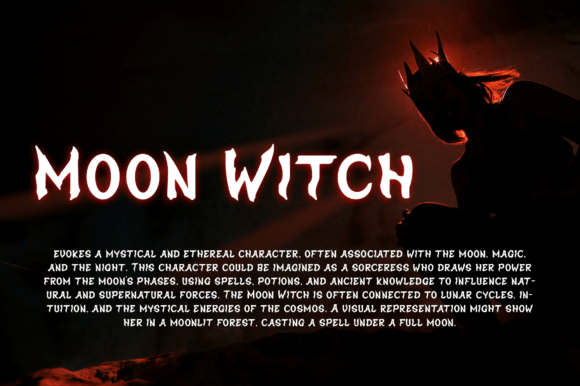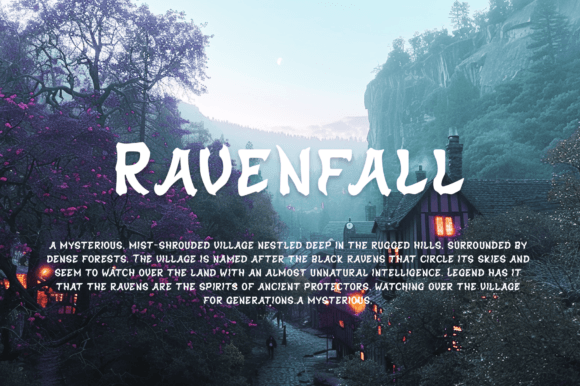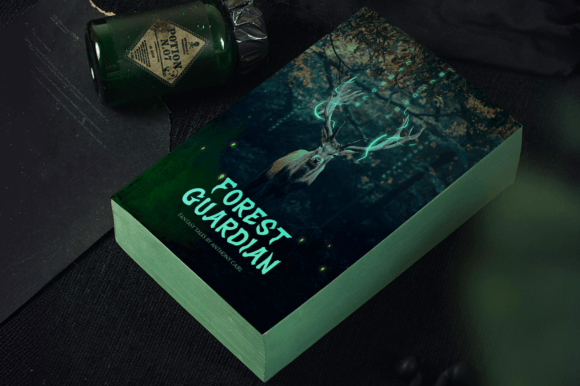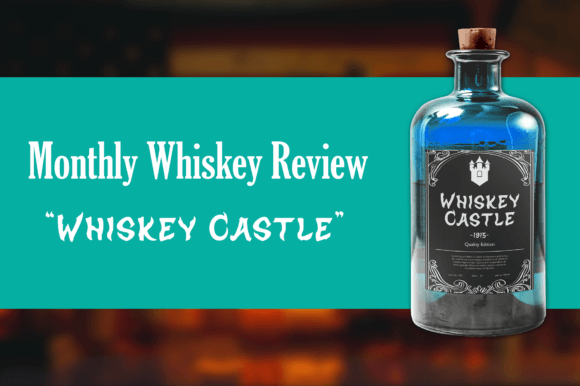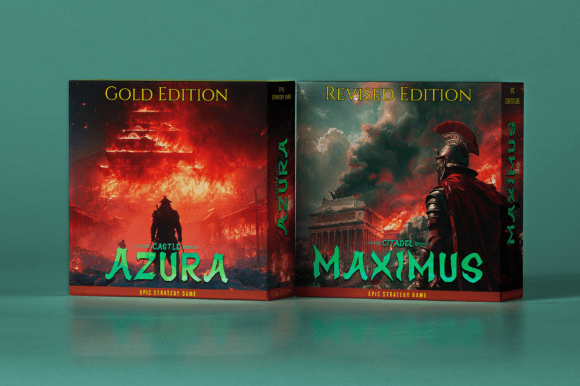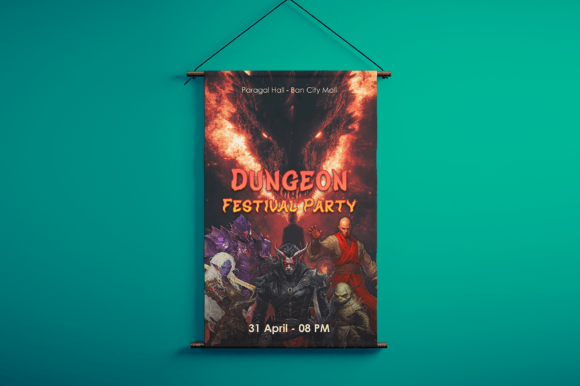
Introduction to Runewood Font
Imagine yourself lost in a dense, misty forest, surrounded by towering trees and the whispers of ancient magic. The air is thick with mystery, and the only sound is the rustling of leaves beneath your feet. It’s moments like these that spark the creativity within us, and inspire us to bring our wildest visions to life.
For designers, the right font can make all the difference in bringing a project to life. That’s why we’re excited to introduce you to the Runewood Font, a bold fantasy typeface that’s sure to captivate your imagination and transport your audience to a world of wonder and awe.
With its sharp, jagged edges and thick strokes, the Runewood Font is the perfect design resource for any creative project. Whether you’re designing a game, book cover, or mystical brand, this high-quality font is sure to make your message stand out with strength and elegance, even on a transparent background.
Key Features of Runewood Font
- High-quality design resource for creative projects, perfect for designers and artists
- Unique, hand-drawn design with intricate details, making it a standout choice for creative projects
- Suitable for use in a wide range of design applications, from logos and branding to typography and graphics
Honest Review: Runewood Font
I recently had the chance to work with the Runewood Font, and I’m excited to share my honest review with you. This font is a great addition to any designer’s toolkit, offering a high-quality, creative project solution that’s perfect for those looking to add a unique touch to their designs.
Overall, I’m impressed with the Runewood Font. It’s a solid design resource that’s perfect for designers looking to add a creative touch to their projects. While it may have some limitations, the quality and value make it a great addition to any designer’s toolkit.
Tips for Getting the Most Out of Runewood Font
Use the Runewood Font with a transparent background to create a unique and eye-catching design. Experiment with different font sizes and styles to add emphasis to your text. You can also pair the Runewood Font with other design resources, such as graphics and images, to create a cohesive and high-quality design.